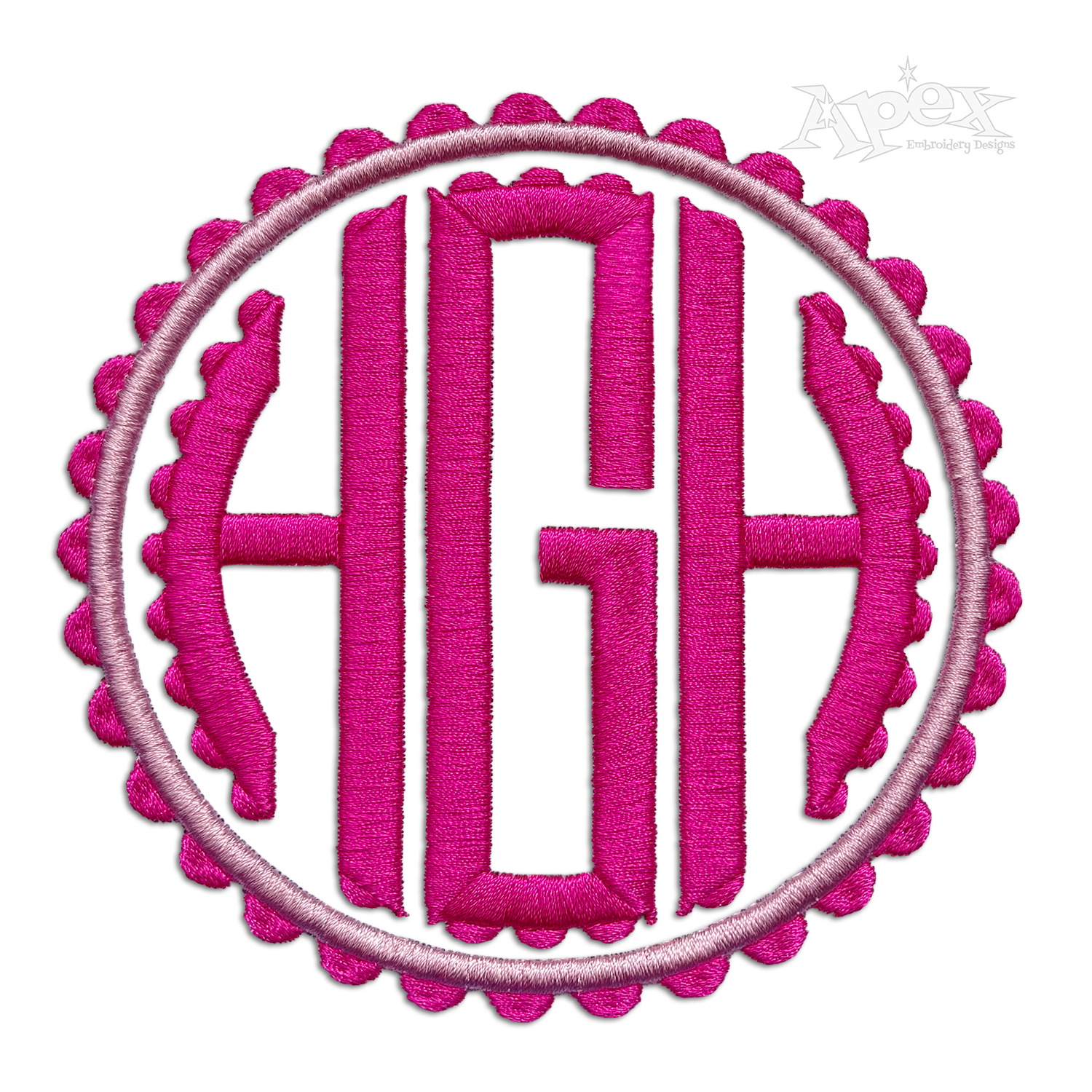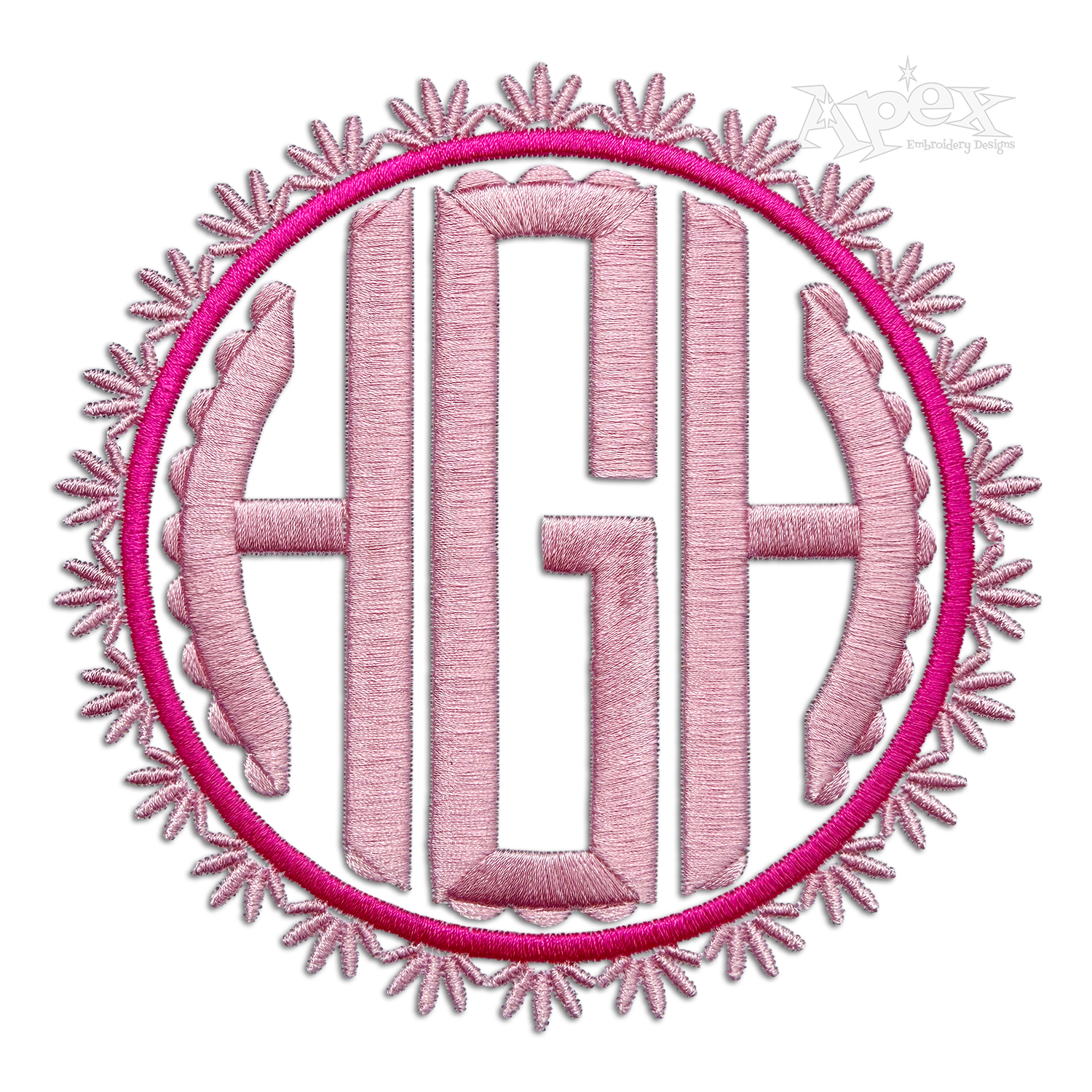
Scalloped Circle Round Embroidery Font
Conceived with an eye toward vintage European crests and timeless coastal charm, the Scalloped Circle Round Embroidery Font reimagines classical monogramming through a beautifully balanced, circular architectural silhouette. Each letterform is contoured to nestle comfortably within its frame, surrounded by petal-soft scalloped crests that bring instant warmth, tactility, and romantic polish to your needlework. Whether stitched in tone-on-tone silk thread on antique table runners or rendered in crisp contrast upon tailored cotton, this design marries the dignified symmetry of round typography with the whimsical grace of delicate scalloped edges.
Digitized with meticulous attention to scale and proportion, the Scalloped Circle Round collection is available in two distinct size configurations to suit projects ranging from dainty boutique accessories to striking statement textiles. Both configurations also include the two coordinating decorative display frames shown in the original release:
Project Ideas for Scalloped Circle Round
The circular symmetry and playful scalloped frame make this alphabet an effortless centerpiece for personal gifting and bespoke textile curations:
Because of its balanced, medallion-like footprint, the Scalloped Circle Round font anchors exceptionally well across a wide variety of canvas weights and garment cuts:
Scalloped Circle Round Craft & Letterform Details
Digitizing a circular monogram requires far more than simply bending vector curves; it demands a deep appreciation for thread tension, push-and-pull compensation, and radial balance. Each letterform in the Scalloped Circle Round font is crafted with variable-width satin columns that gradually taper, ensuring the curve of each initial feels intentional, fluid, and structurally sound under needle impact.
The companion scalloped frames have been carefully engineered with balanced stitch angles that travel smoothly around the circular perimeter, avoiding density bunching at inner focal points while delivering smooth, plump scalloped arches along the exterior edge. The resulting embroidery yields an ultra-rich, tactile crown with a glossy, light-catching satin finish that elevates simple fabric into an instant heirloom keepsake.